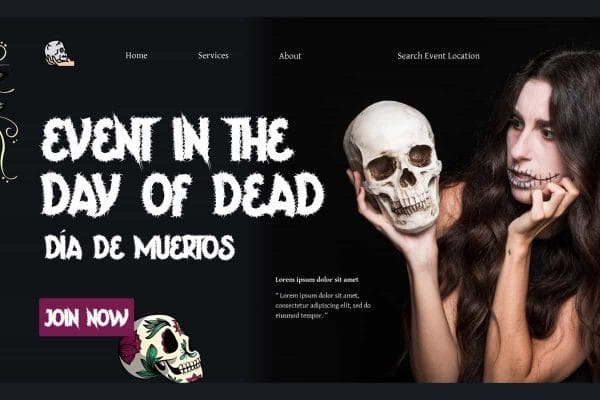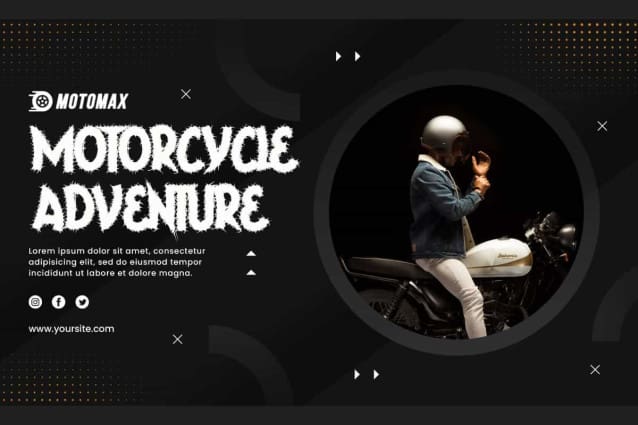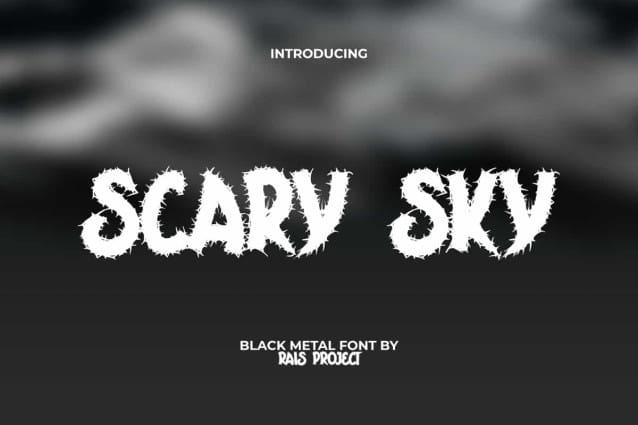
Scary Sky Font
Scary Sky Font is a black metal font with a creepy look. This font successfully exudes a spooky aura that can make you shiver because of the many thorns embedded in all the characters. It will be good for any designs, such as advertisement, brand image, cover, custom design, invitation, label, marketing material, menu, poster, product packaging, quotes, signage, website, and more!
Scary Sky Font includes a full set of ALL CAPS for Uppercase and Lowercase Letters, Numerals, and large range of Punctuation. This awesome font will be suitable for various industries, such as accessories or merchandise, automotive, event or festival, café, clothing brand, fashion, game, graphic design, movie, printing, publishing, etc.